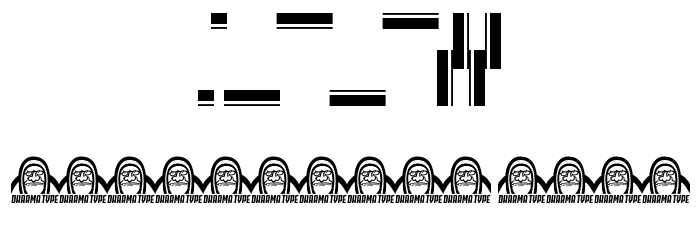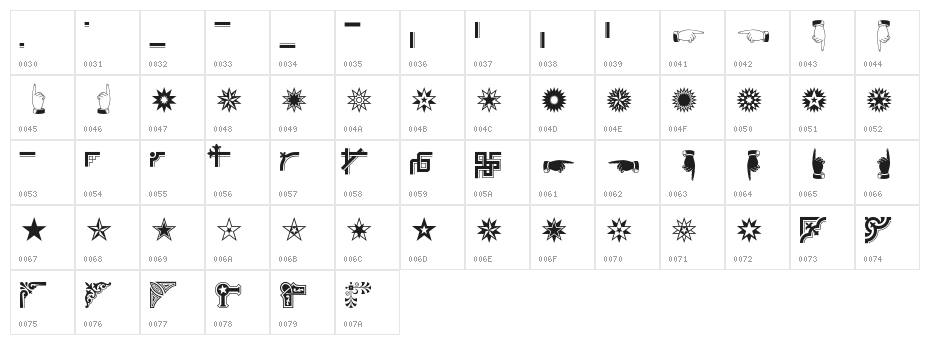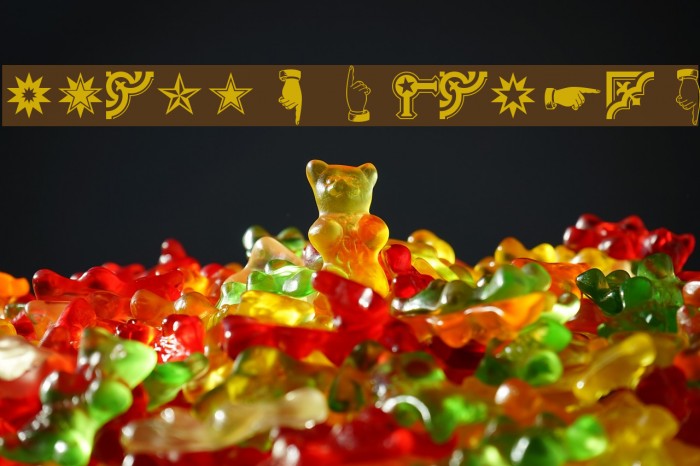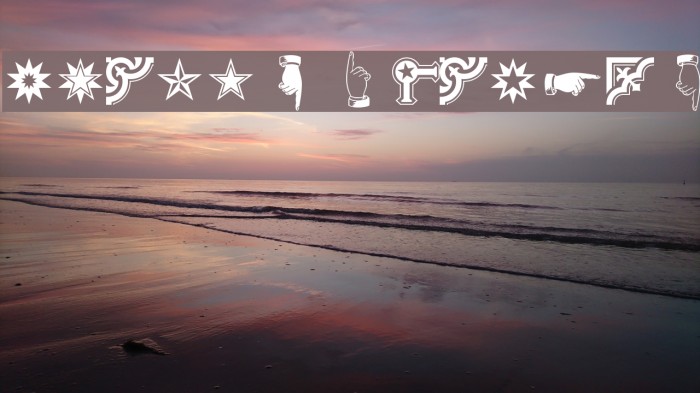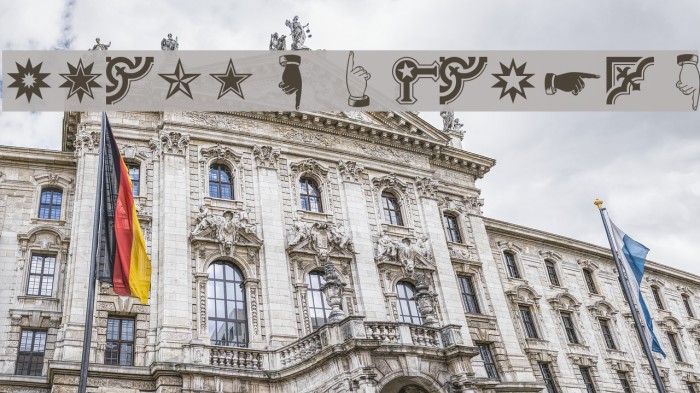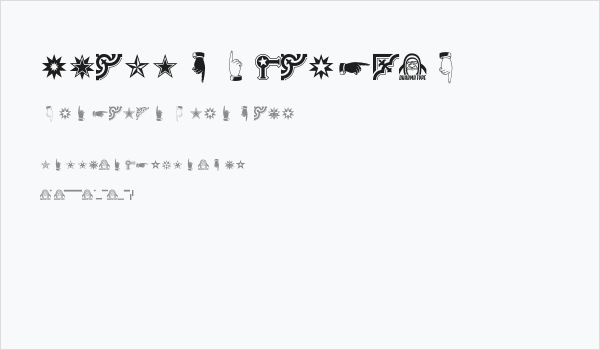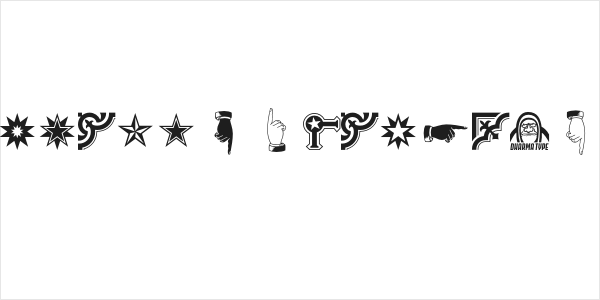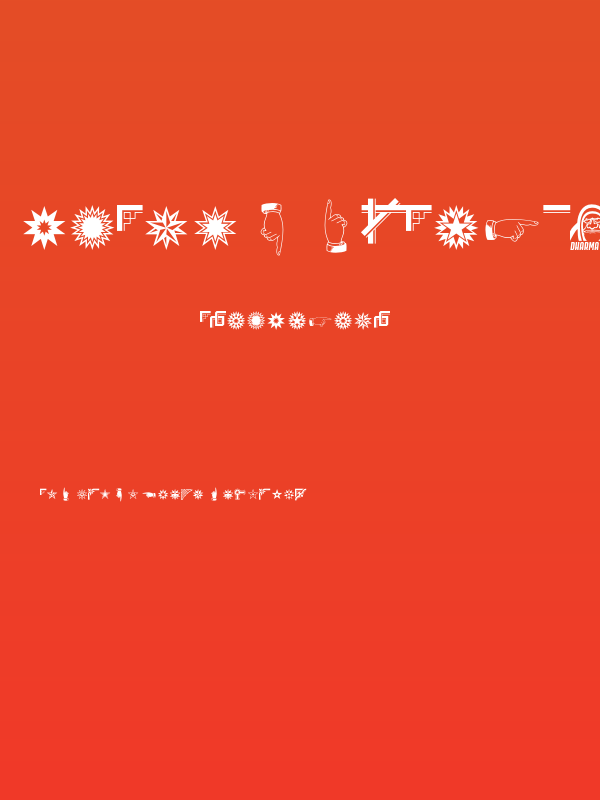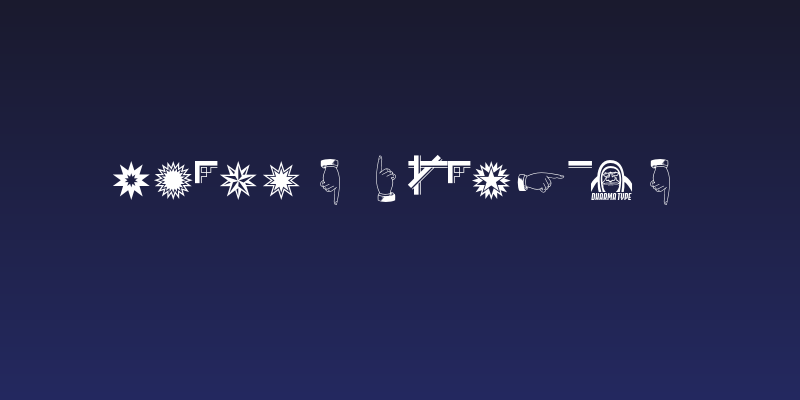
GothicExtras-C Font
GothicExtras-C Description
A decorative dingbat and symbol set featuring pointing hands, ornate stars, geometric borders, keys, and stylized faces, all rendered in a bold, highly detailed, and vintage-inspired style. The glyphs are primarily black and white, with strong outlines and intricate patterns, suitable for ornamental and illustrative purposes.
| Overall Style | Vintage, Decorative |
| Use Case | Borders, embellishments, icons, and decorative accents. |
| Proposed Projects | Posters, invitations, certificates, decorative borders, vintage-themed designs, signage, scrapbooking, and branding elements. |